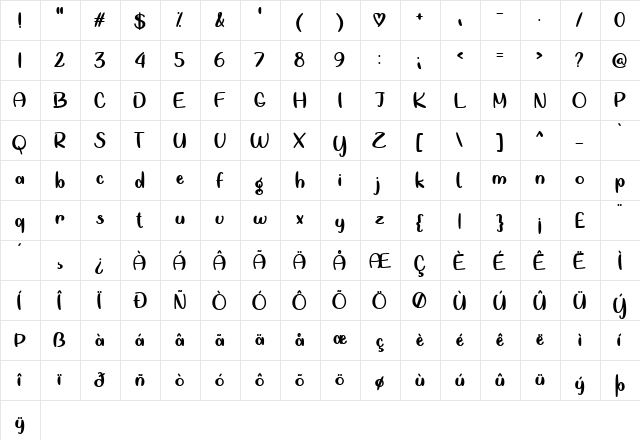
Going Forward Regular
Design Context for Going Forward Typeface
Going Forward is a composed and adaptable typeface that performs quietly and consistently across a wide range of design contexts.